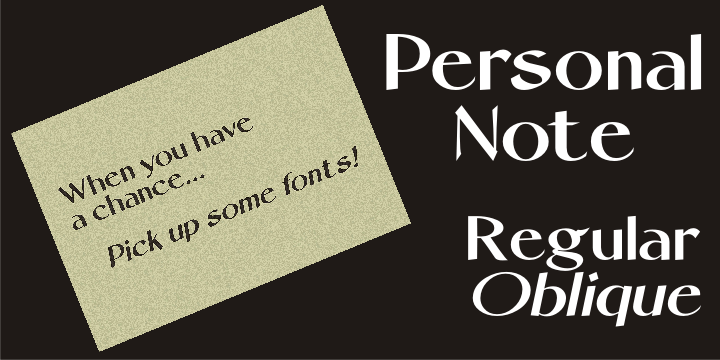
Personal Note
Personal Note JNL gets its inspiration from a semi-calligraphic pen alphabet found in the 1960 edition of the Speedball® lettering textbook and is offered in both regular and oblique versions.
Personal Note JNL Regular by Jeff Levine Fonts